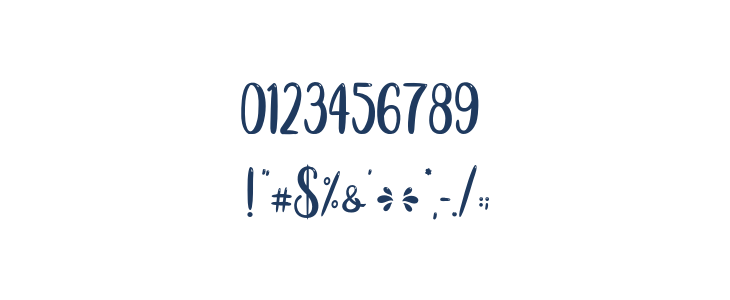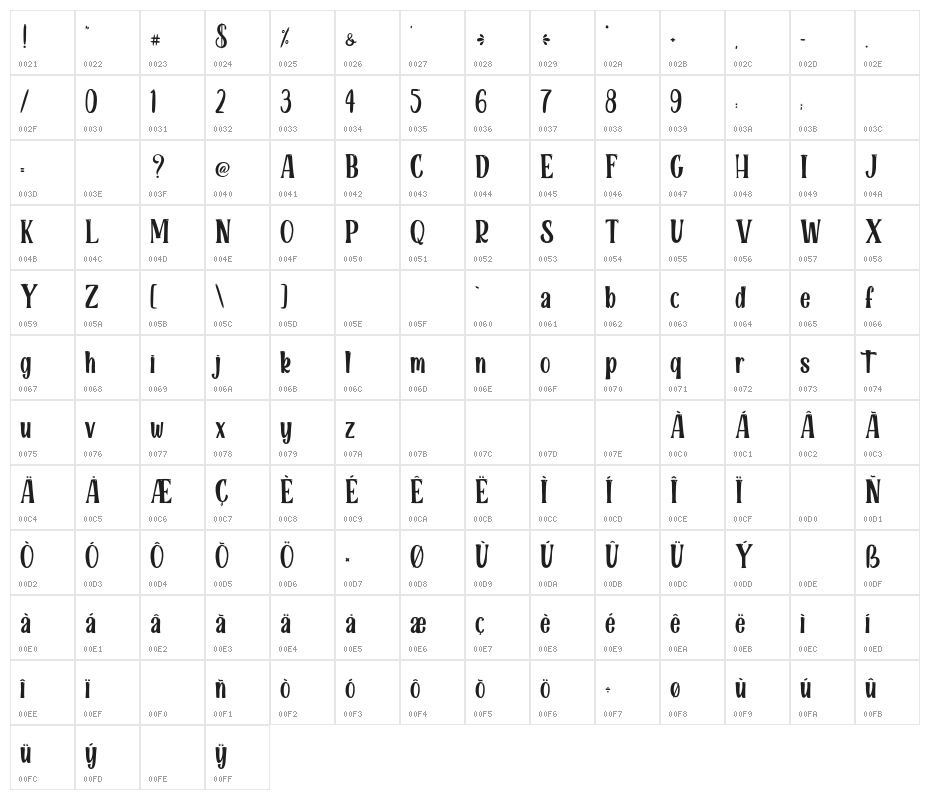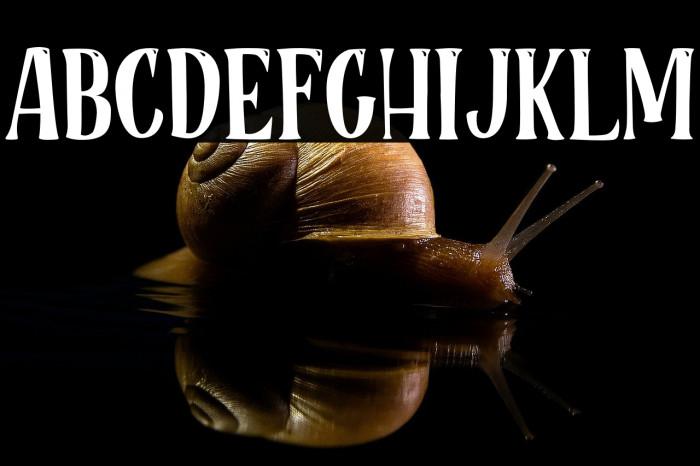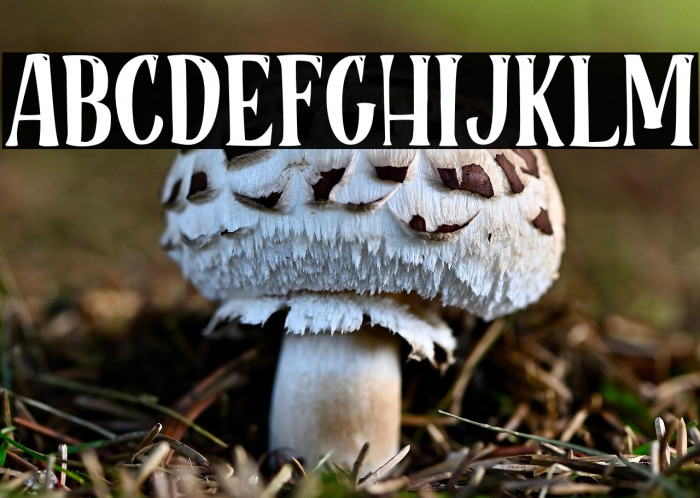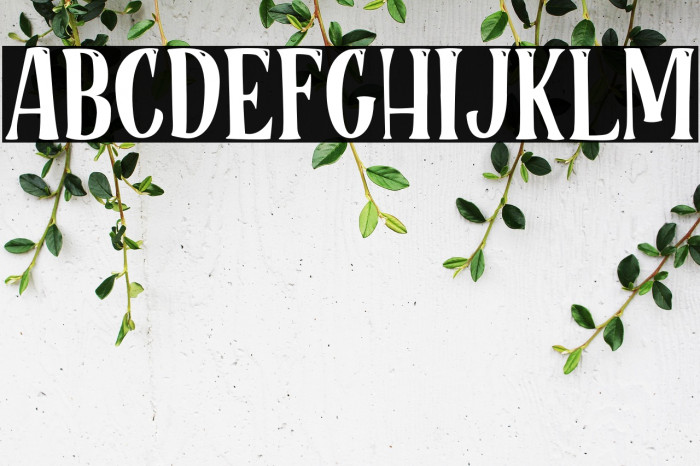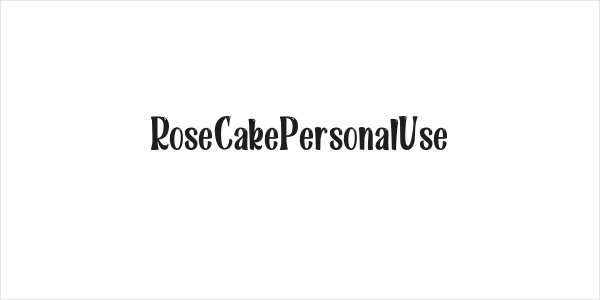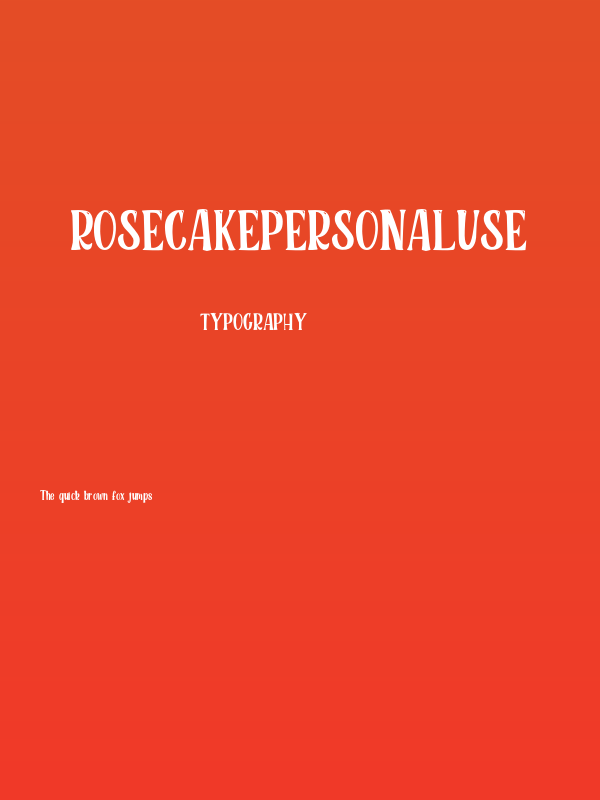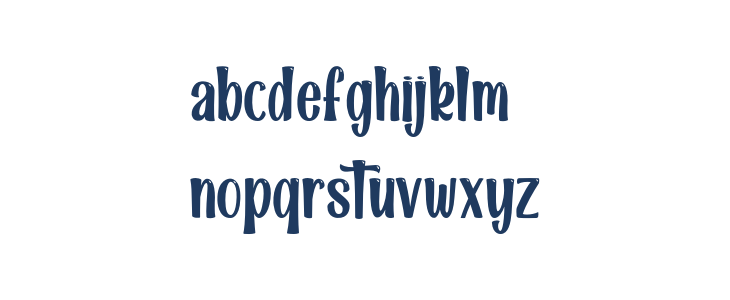
RoseCakePersonalUse Font
RoseCakePersonalUse Description
This font features a playful and whimsical style, characterized by its bold and slightly irregular letterforms. The uppercase letters are tall and narrow, with a slight slant that adds a dynamic feel. The lowercase letters are more rounded and compact, maintaining a consistent flow throughout. The numbers follow the same playful aesthetic, with varying stroke widths that add to the font's charm. Special characters are creatively designed, enhancing the overall quirky and fun appearance. This font is perfect for projects that require a touch of personality and creativity.
| Overall Style | Playful |
| Use Case | Logos, Headlines, Posters |
| Proposed Projects | Ideal for children's books, playful branding, creative posters, and greeting cards. |